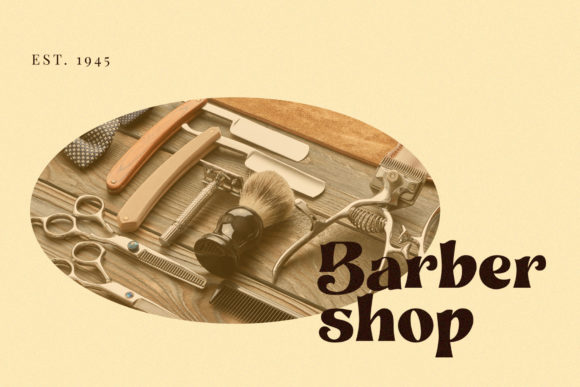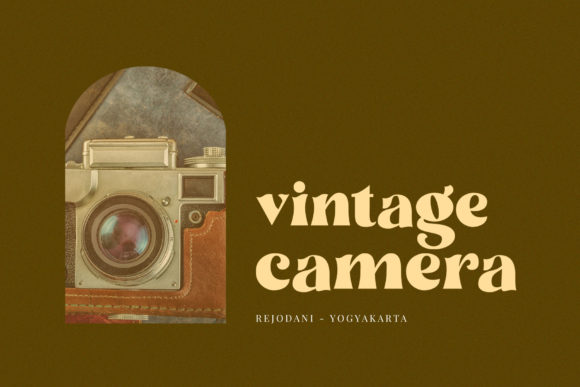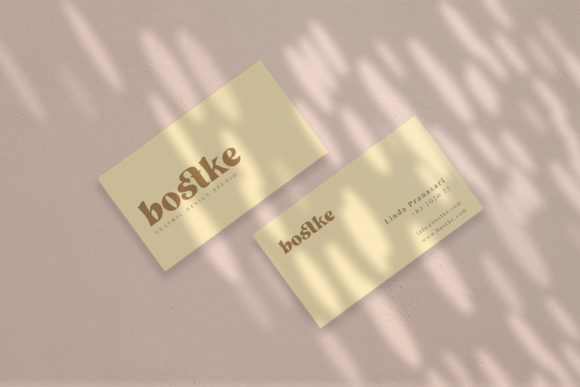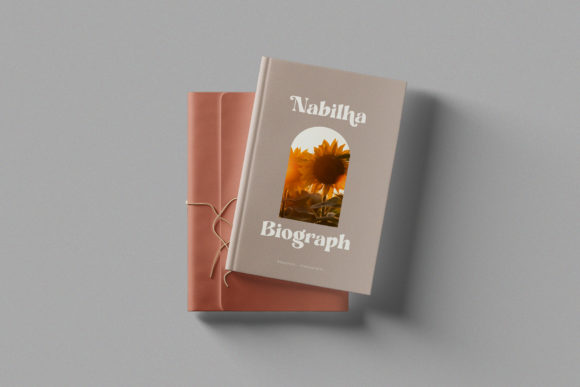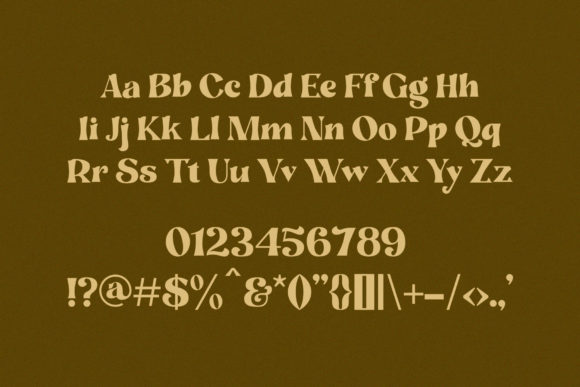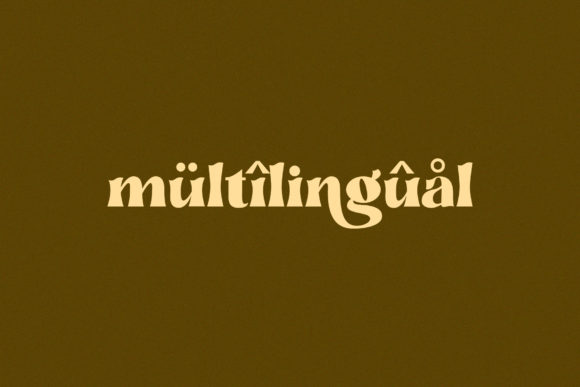
Introducing Hangier Font: A Timeless Bold Serif Typeface
In the world of typography, a good font can make all the difference in the success of a design project. For designers and crafters looking for a versatile and visually appealing typeface, Hangier Font is an excellent choice. This bold serif vintage font boasts beautiful ligatures, multilingual support, and a wide range of applications, making it a valuable addition to any design arsenal.
What Makes Hangier Font Stand Out?
Hangier Font is a bold serif typeface that exudes a sense of elegance and sophistication. Its vintage charm is perfect for designers looking to add a touch of classic style to their work. The font’s bold lines and serifs make it highly legible, even at small sizes, while its beautiful ligatures add a level of refinement and luxury.
Key Features of Hangier Font
- Bold Serif Design: Hangier Font features a bold serif design that commands attention and exudes confidence.
- Beautiful Ligatures: The font includes a range of beautiful ligatures that add a touch of elegance and sophistication to any design.
- Multilingual Support: Hangier Font supports multiple languages, making it a versatile choice for designers working on international projects.
- Versatile: This font works great in both large and small sizes, making it suitable for a wide range of applications.
Use Cases for Hangier Font
Hangier Font is a highly versatile typeface that can be used in a variety of design projects, including:
- Posters: The font’s bold lines and serifs make it perfect for creating eye-catching posters that grab attention.
- Headlines: Hangier Font is ideal for headlines, adding a touch of elegance and sophistication to any title or heading.
- Block Letters: The font’s bold design makes it perfect for block letters, adding a level of professionalism and polish to any design.
- Subheadings: Hangier Font can also be used for subheadings, providing a clear and concise way to break up large blocks of text.
- Logo Designs: The font’s unique character and vintage charm make it an excellent choice for logo designs, adding a touch of personality and style to any brand.
- Branding: Hangier Font can be used across a range of branding materials, from business cards to billboards, providing a consistent and professional look.
Why Choose Hangier Font?
With so many fonts available, why choose Hangier Font? Here are just a few reasons why designers and crafters are falling in love with this typeface:
- Unique Character: Hangier Font has a unique character that sets it apart from other typefaces, making it perfect for designers looking to add a touch of personality to their work.
- Highly Legible: The font’s bold design and clear lines make it highly legible, even at small sizes.
- Multilingual Support: Hangier Font’s multilingual support makes it a versatile choice for designers working on international projects.
- Elegant and Sophisticated: The font’s vintage charm and beautiful ligatures add a level of elegance and sophistication to any design.
Hangier Font is a timeless bold serif typeface that offers a unique combination of elegance, sophistication, and versatility. With its beautiful ligatures, multilingual support, and highly legible design, it’s perfect for a wide range of design projects, from posters and headlines to logo designs and branding. Whether you’re a designer or crafter looking for a reliable and stylish typeface, Hangier Font is an excellent choice.